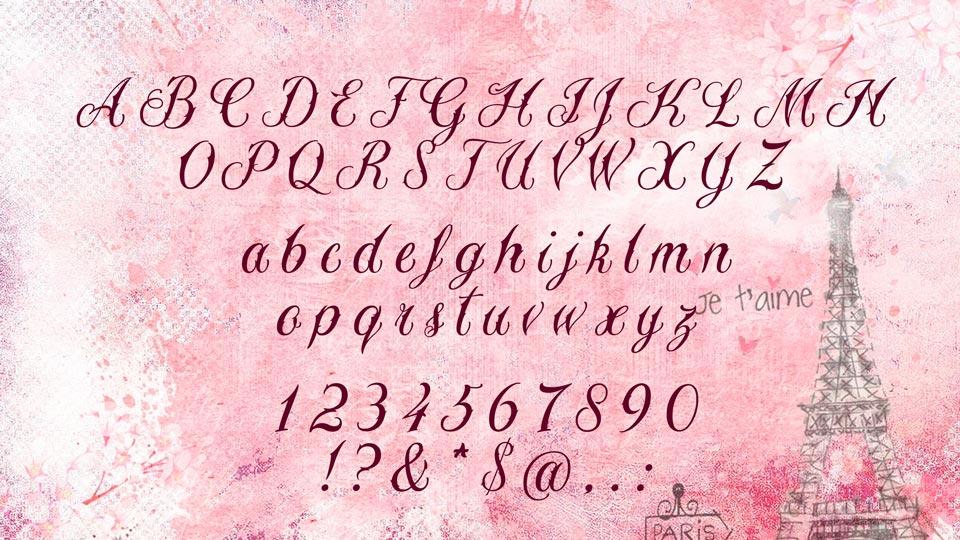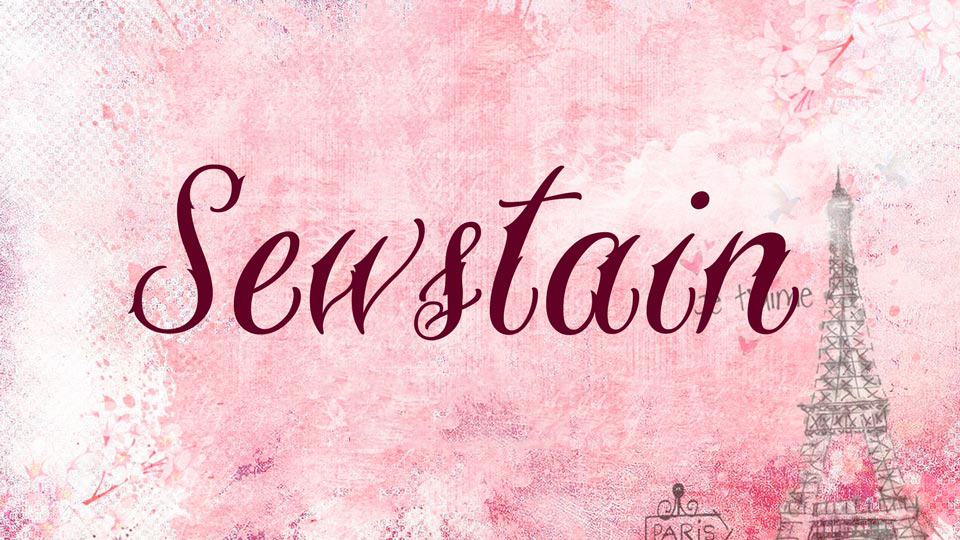
Sewstain Font
Sewstain is a elegant and stylish script font. It contains uppercase and lowercase letters, numbers, symbols. Sewstain font perfectly suites for logos, quotes, femine designs and apparel prints, wedding invitation, cards and more.